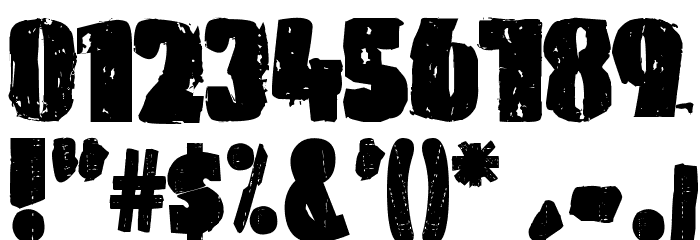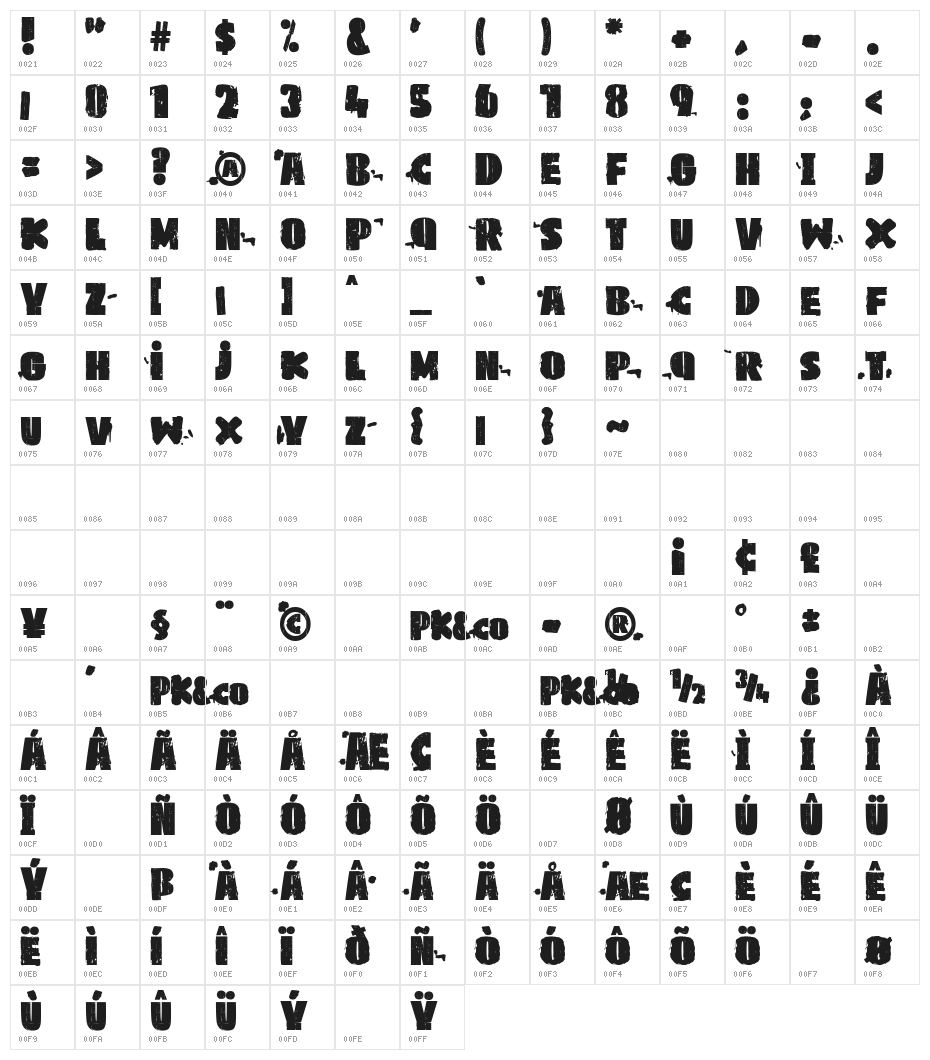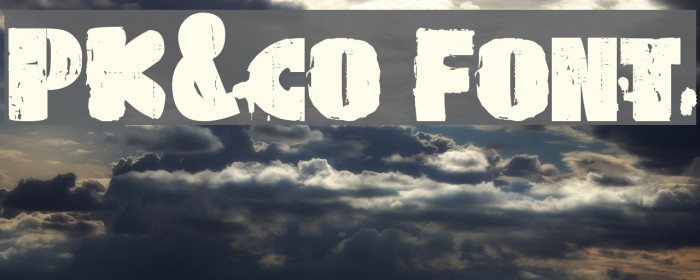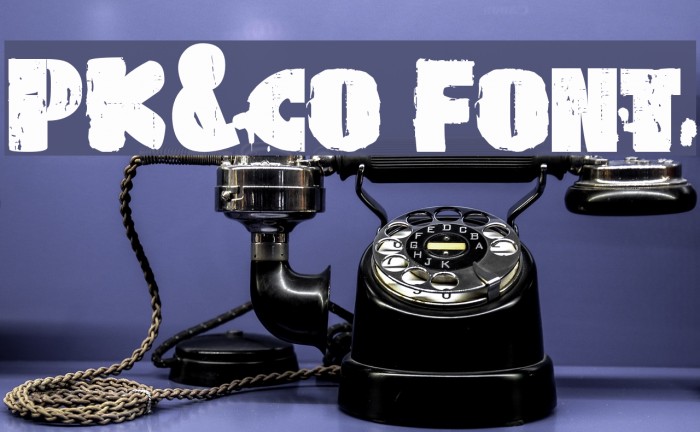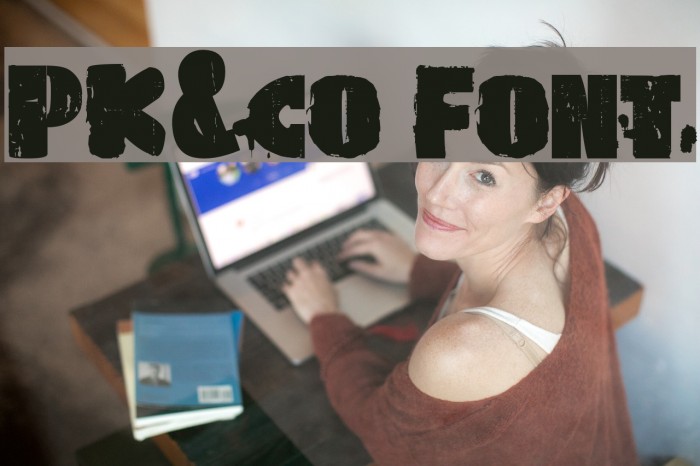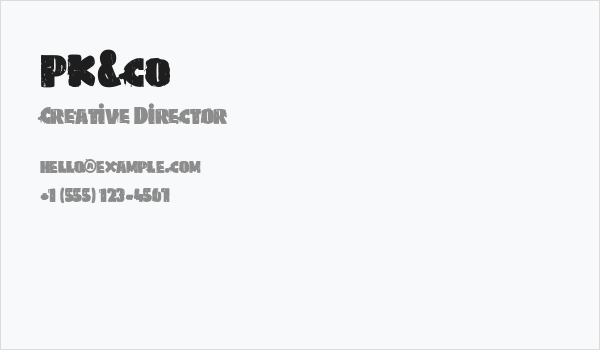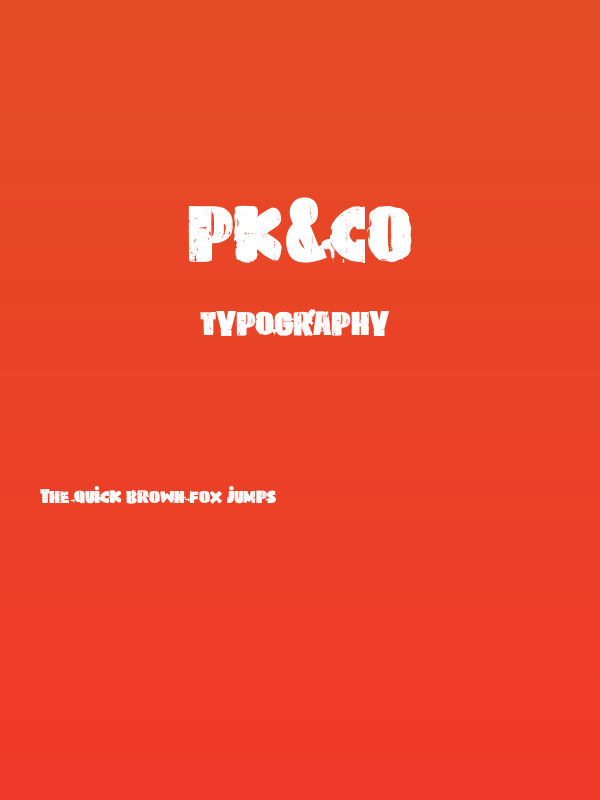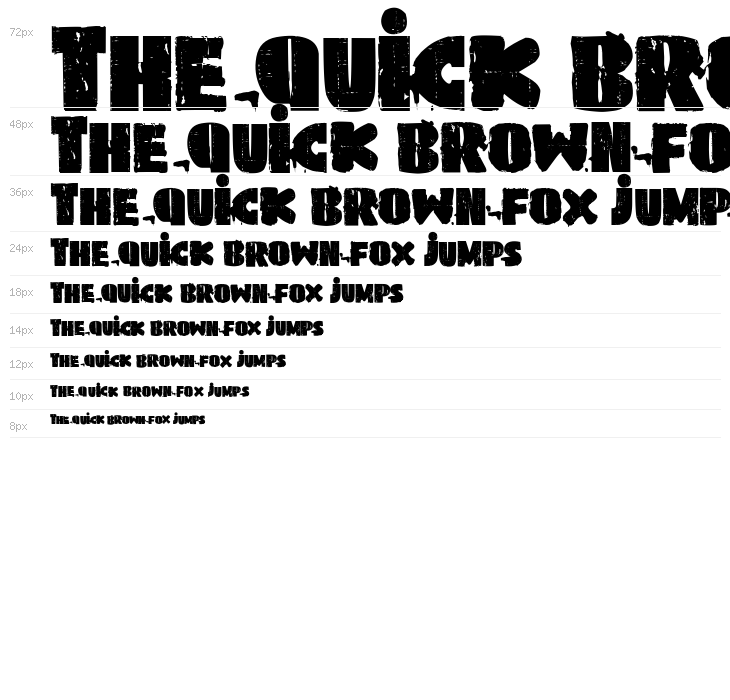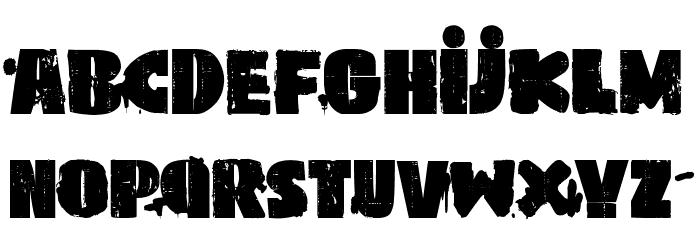
PK&co Font
PK&co Description
This font features a bold, distressed style with a grunge texture that gives it a rugged, worn appearance. The characters are thick and blocky, with irregular edges and a rough, weathered look that suggests a vintage or industrial aesthetic. The uppercase and lowercase letters maintain a consistent weight, while the numbers and special characters follow the same distressed theme. This font is ideal for projects that require a strong, impactful visual presence, such as posters, album covers, or branding for edgy or alternative products.
| Overall Style | Vintage, Industrial |
| Proposed Projects | Ideal for posters, album covers, edgy branding, and industrial-themed designs. |